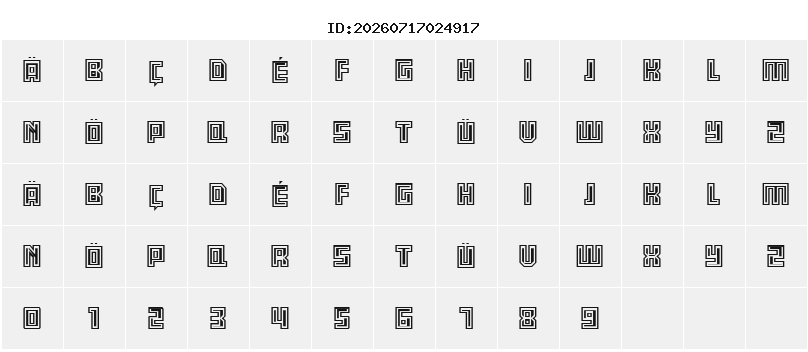
• Font Name: AB Engraved
• Full Font Name: AB Engraved
AB Engraved.ttf is a modern, elegant sans-serif font designed for ultimate readability and visual harmony. Perfect for branding, headlines, web design, and print materials.